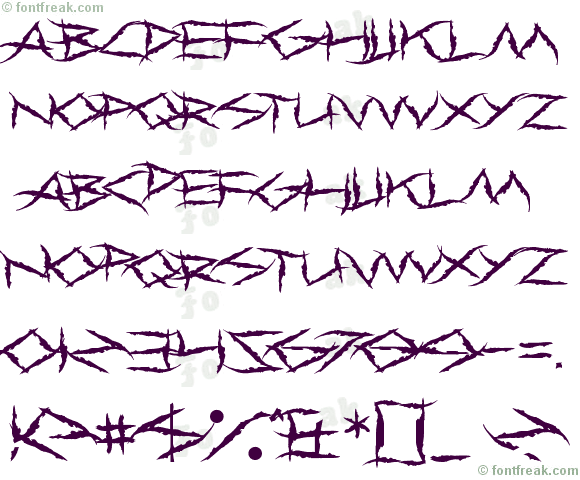
Primal Dream
About Primal Dream
Primal Dream is a striking display typeface designed by Andrew McCluskey in 2014. This font embodies a unique aesthetic that blends primal, raw energy with dream-like qualities, making it an ideal choice for creative projects that aim to evoke emotion and intrigue. As a decorative font, Primal Dream features jagged edges and an irregular stroke weight that lends a sense of movement and spontaneity, while the overall contrast between thick and thin lines enhances its visual impact. The spacing is carefully crafted to maintain readability, despite its artistic flair, ensuring that each letter stands out.
This typeface is particularly well-suited for a variety of specific use cases. Its bold and adventurous style makes it perfect for movie posters that need to convey a sense of drama and excitement. Additionally, Primal Dream can elevate the visual appeal of restaurant menus, especially those with a theme centered around the wild or natural elements. Graphic designers may find this font useful for album covers, where it can effectively encapsulate the essence of the music or the artist’s vision. It also serves well in branding for small businesses looking to establish a strong, memorable identity, particularly those in the creative or outdoor sectors.